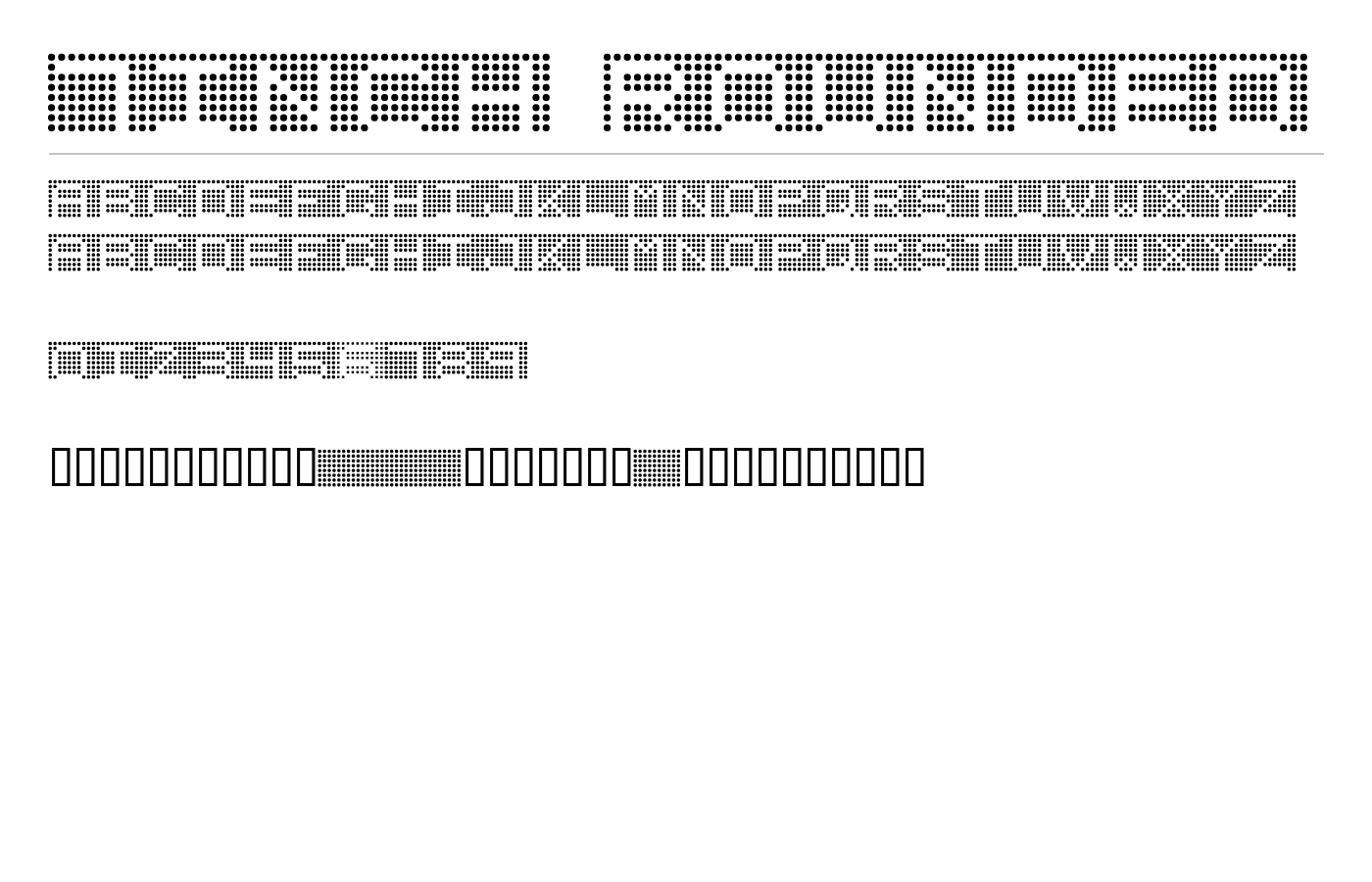
7inch Regular is a unique display font characterized by its dot-matrix style and geometric construction, giving it a modern, digital aesthetic. With consistent weight and even spacing, this sans serif typeface exudes a tech-inspired, futuristic vibe ideal for eye-catching headlines, logos, and digital-themed branding projects. Its playful yet structured design works well in creative contexts that want to blend retro pixel art with contemporary design trends.
7inch Regular Font